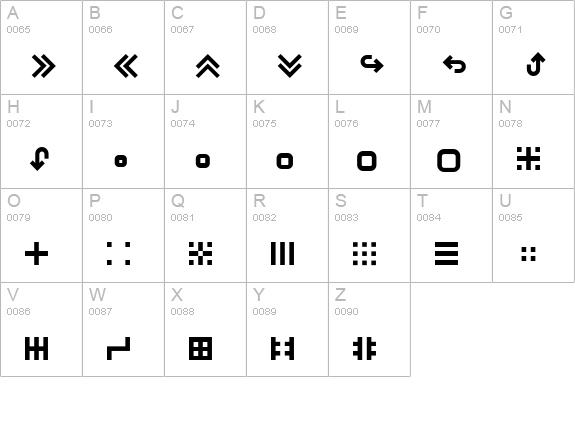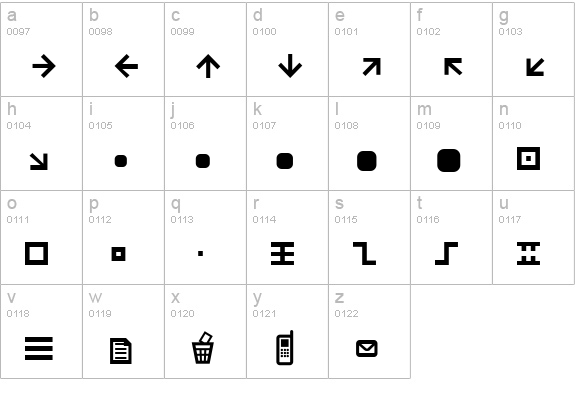
SwiszDings Font Details
SwiszDings font is a versatile and unique typeface that will add a touch of elegance and playfulness to your designs. This font features a wide range of decorative elements and symbols, making it perfect for creating eye-catching graphics, invitations, and more. With its clean lines and modern aesthetic, SwiszDings font is sure to make a statement wherever it is used. The best part? SwiszDings font is available for free download at FontsMarket.com. Whether you're a professional designer or a hobbyist looking to add some flair to your projects, SwiszDings font is a fantastic choice. Don't miss out on this amazing opportunity to enhance your designs with this stunning font - download SwiszDings today and let your creativity shine!